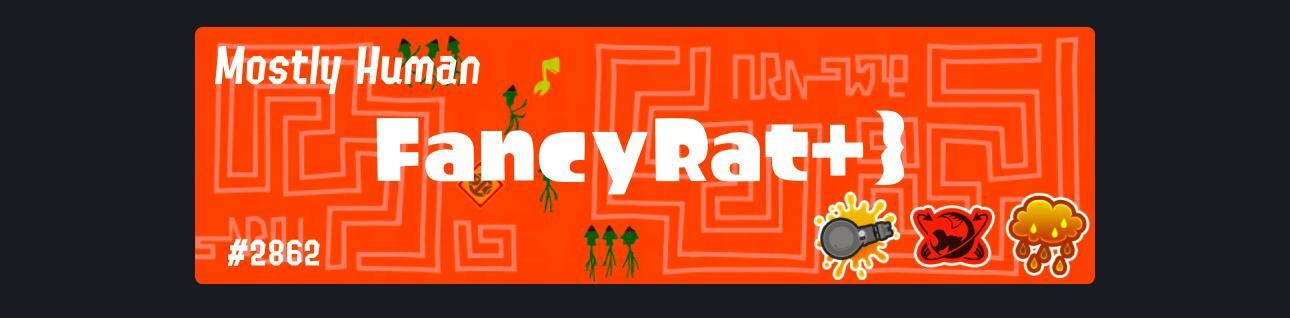
Searching for alternative free fonts for Splatoon 3 splashtag
I was searching for fonts that I could use with a free commercial license that were as close as possible to the two fonts in this image. My preference site is Google Fons as I know I won't have problem with licensing / unsuported characters, but I would still like to hear all of your suggestions.
Splatoon 3 Splashtag
My opinion is, that these are Nintendo licensed fonts. I don't think you'll find anything close to that, that is free for commercial use, and you'll be using knock-offs that are "free for personal use", but on the shaky grounds legally. So that said, the most similar (but not really that much) Google fonts are:
'Fancy Rat' - Titillium (black 900)
'Mostly Human' - Mohave (regular 400)
Agree with MissNobody—Fancy Rat is a proprietary font for Nintendo called Splatfont, and Mostly Human is the same (called Splatfont 2).
Didn’t find anything closer in Google fonts than what MissN already proposed, though there are a few closer matches among commercial fonts for Fancy Rat.